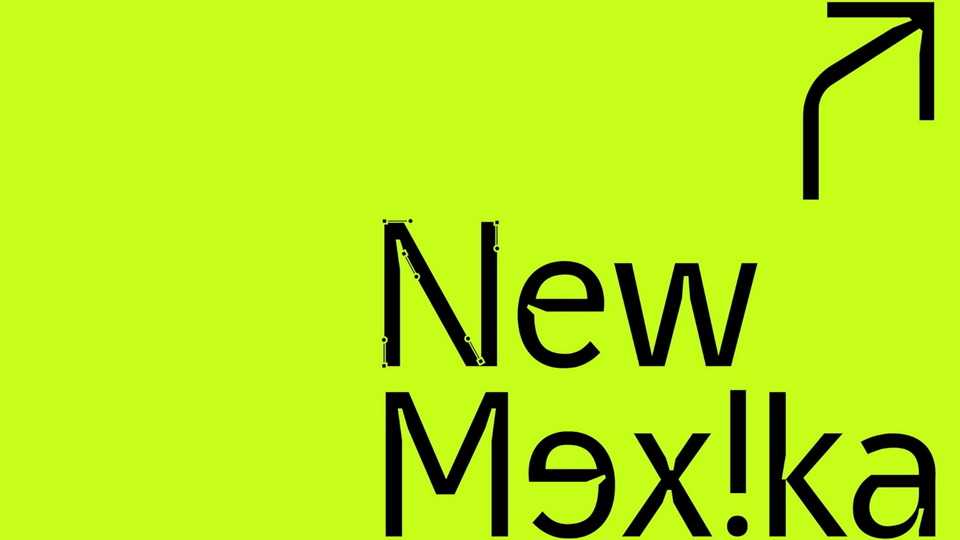
Download New Mexika font, a contemporary sans serif typeface with huge ink traps as decorative elements. New Mexika font works best at large sizes, with softened ink traps pair legibility with aesthetic, while its strict horizontal and vertical terminals give it a rigid yet friendly appearance.
Designer: Ilya Kolobov